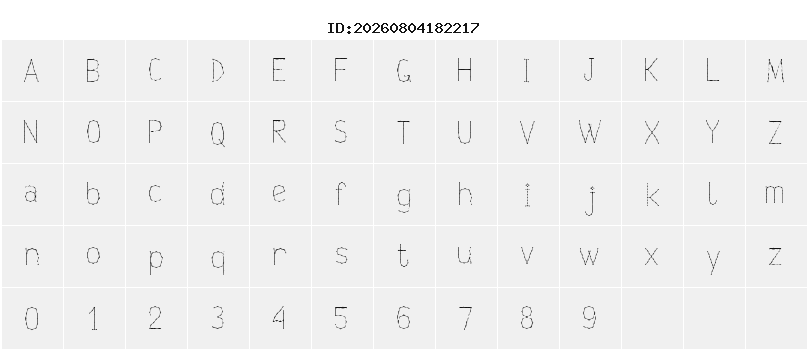
Nexarumpelstil Preview
• Font Name: Nexarumpelstil
• Full Font Name: Nexarumpelstil
• Version: Version 1.00 May 1, 2014, initial release
• Designer: Lab-room for viper78 Clerical Office - viper78 aka Vlad Viperov, Volgograd 2013
• Manufacturer: Lab-room for viper78 Clerical, Vlad Viperov
• Description: Decorative Exotic fonts for use in all places
About Nexarumpelstil.ttf
Nexarumpelstil.ttf is a modern, elegant sans-serif font designed for ultimate readability and visual harmony. Perfect for branding, headlines, web design, and print materials.